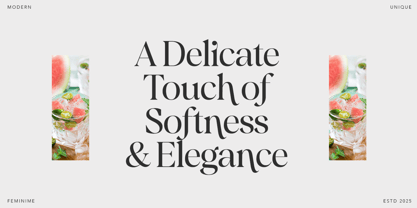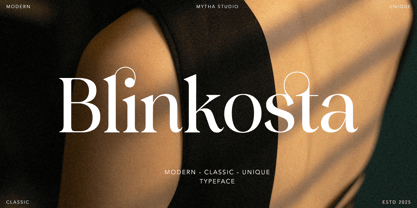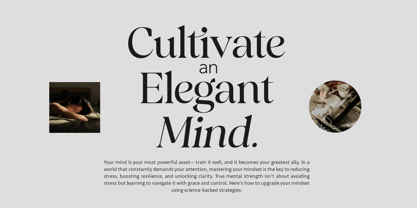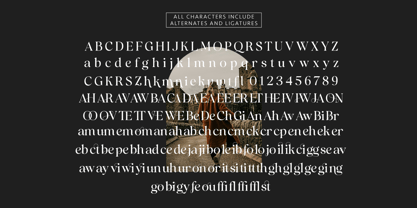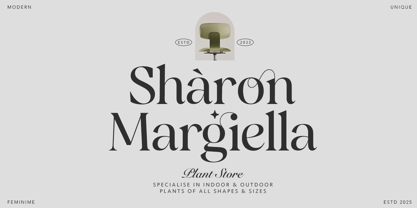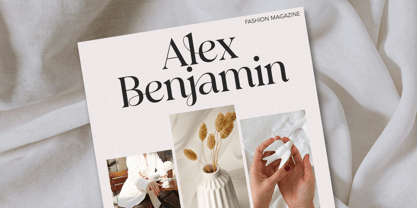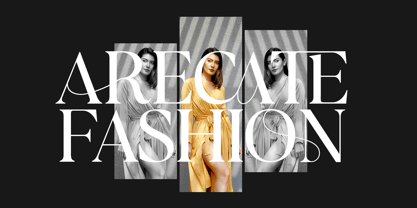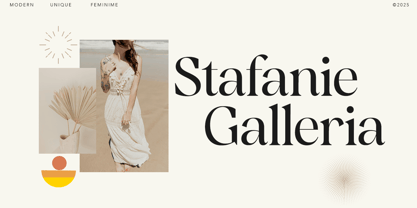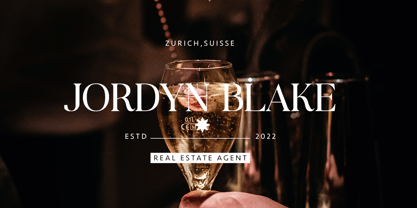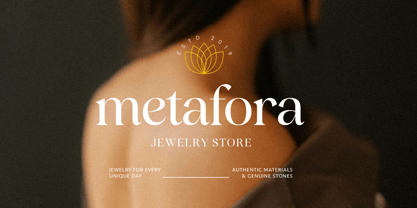
Blinkosta
by Mytha Studio
The Blinkosta Font Family was designed by Miftahul Jannah and published by Mytha Studio. Blinkosta contains 2 styles and family package options.
Blinkosta is classic ligature serif font with that extra touch of elegance. This sophisticated editorial font elevates your work through it's clean and classic visuals as well as swoon-worthy ligatures that instantly enhance your designs.
Blinkosta timeless elegance and effortlessness have influenced the sleek letters, stunning alternates and simplistic lines that find it's finishing touches through a subtly handcrafted appearance. The standard upper-and lowercase alphabet create an elegant and effortlessly sophisticated look, while alternates and ligatures add extravagance within seconds and add a whole new style to the font.